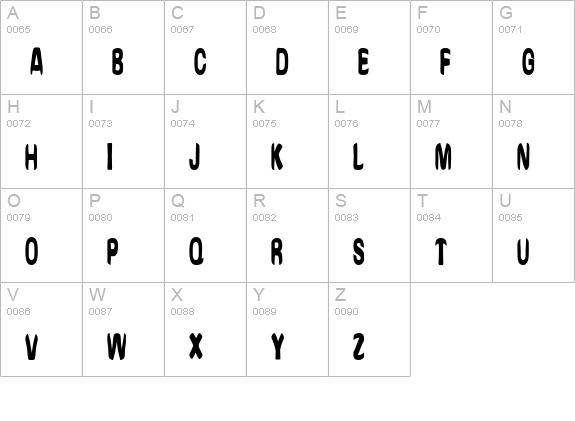
Yonder (BRK) font is a versatile and eye-catching typeface that exudes a sense of creativity and modernity. With its unique and playful design, this font is perfect for adding a touch of personality to any project. The smooth curves and bold lines of Yonder (BRK) make it stand out in both digital and print formats, making it a great choice for branding, advertising, and more. Best of all, Yonder (BRK) font is available for free download at FontsMarket.com. This means that you can easily access this stylish font and use it in your designs without any cost. Whether you're a designer looking for a fresh new font or just someone who appreciates high-quality typography, Yonder (BRK) is sure to impress with its modern and distinctive look.